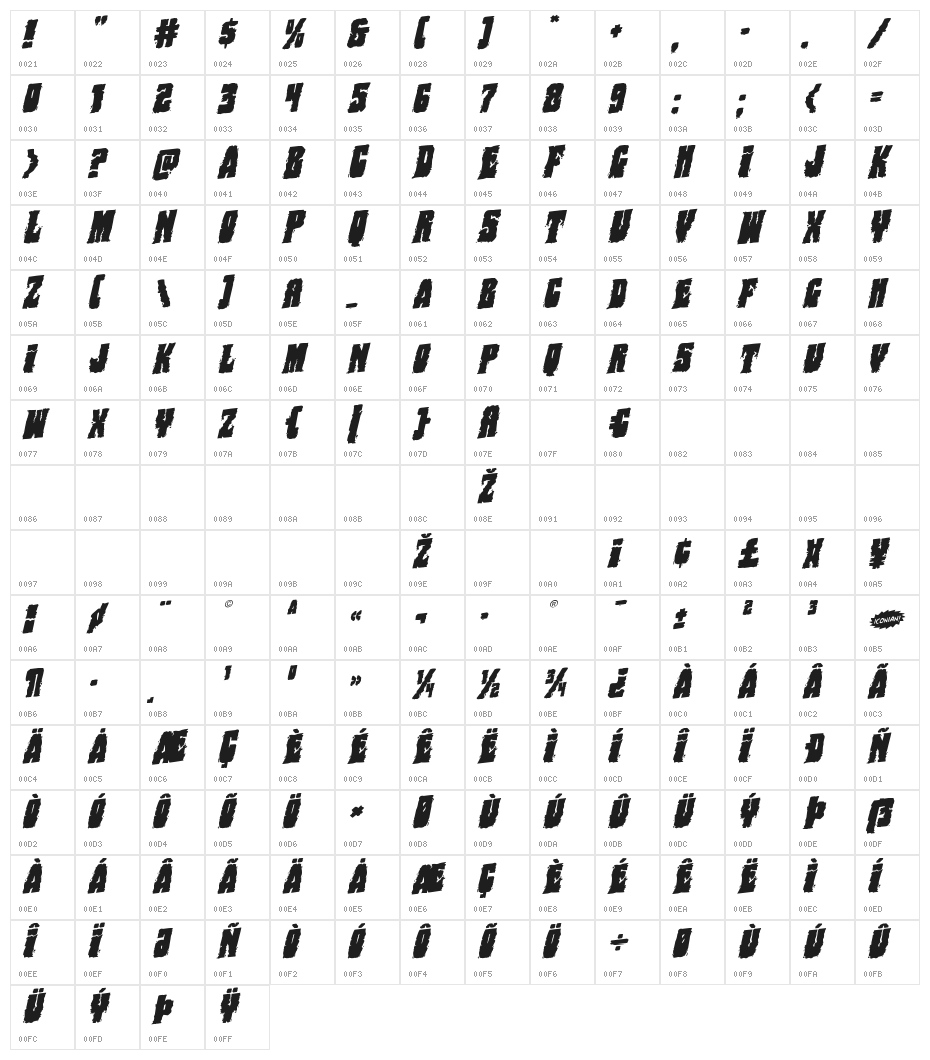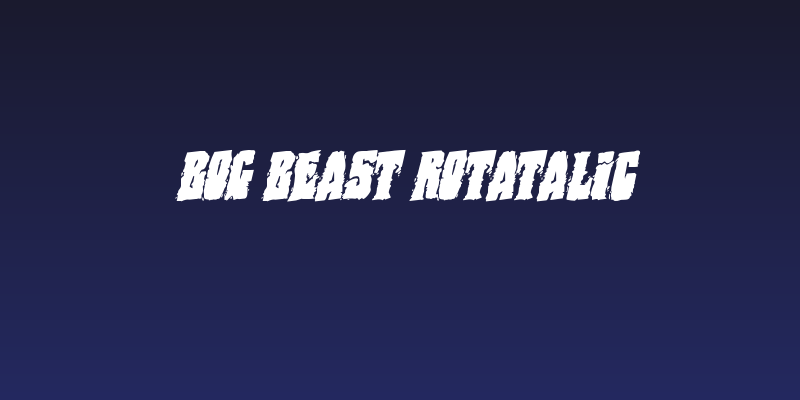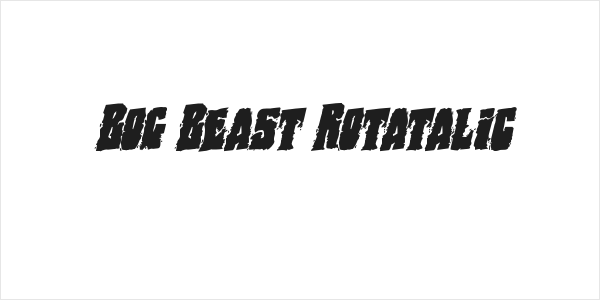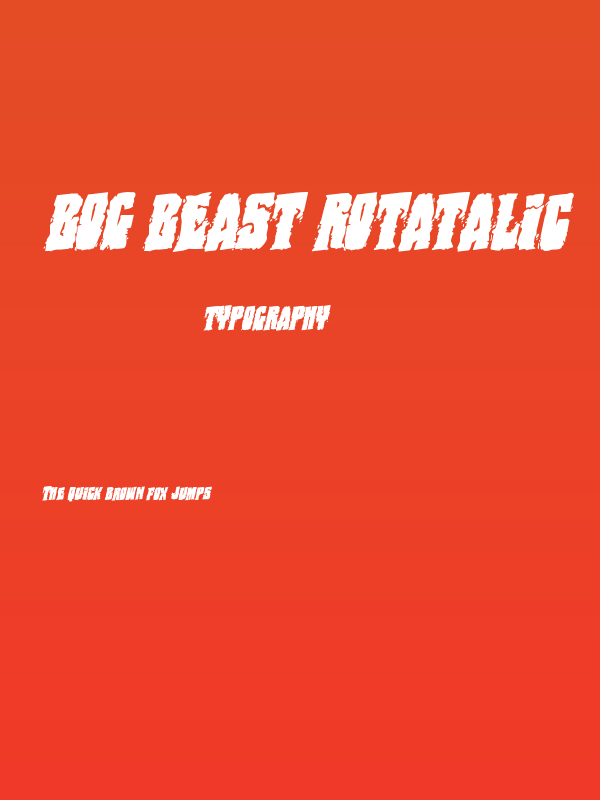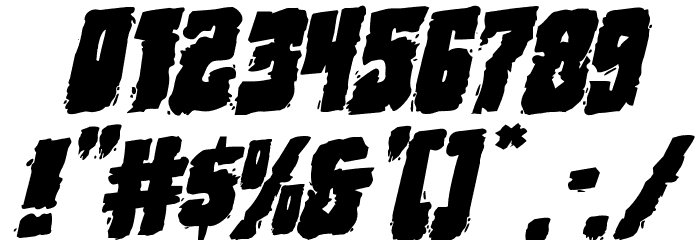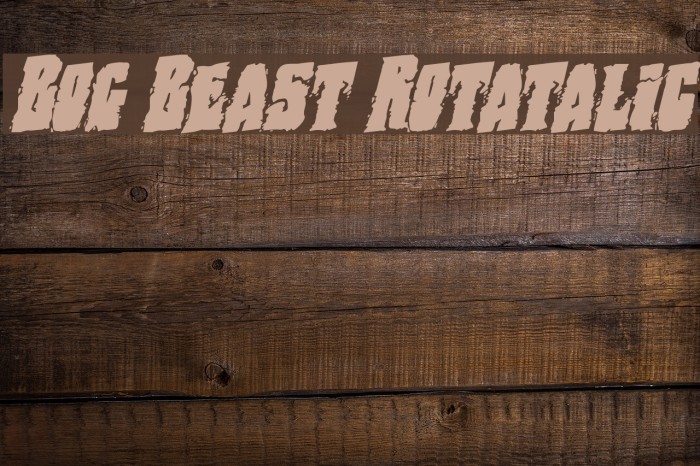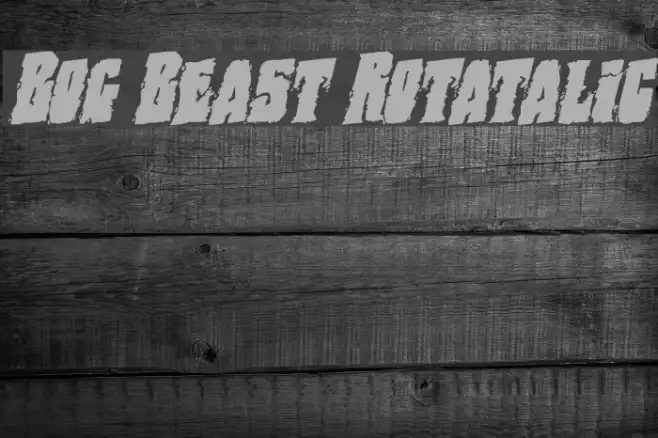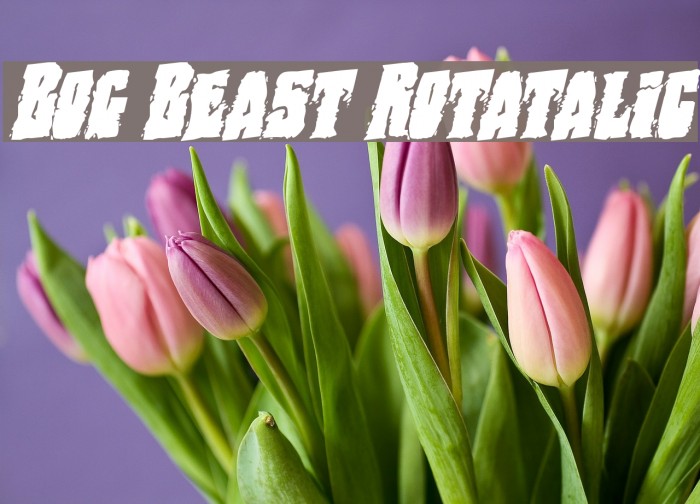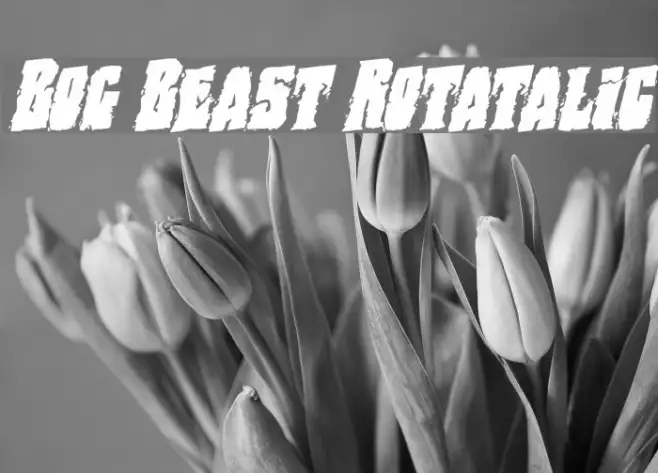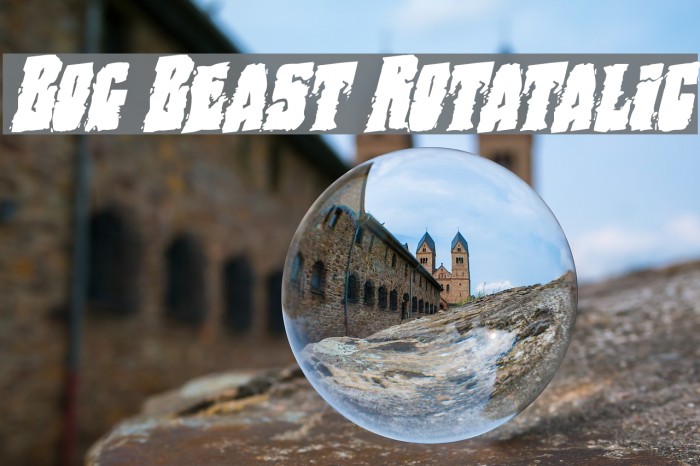
Bog Beast Rotatalic Font
Bog Beast Rotatalic Description
This font features a rugged, distressed aesthetic with a bold and aggressive appearance. The characters are heavily stylized, with jagged edges and an irregular texture that gives the impression of being worn or eroded. The uppercase and lowercase letters maintain a consistent style, with a slight slant that adds to the dynamic feel. Numbers and special characters are equally bold and textured, ensuring a cohesive look across all glyphs. This font is designed to stand out and make a strong visual impact, ideal for projects that require a gritty or intense vibe.
| Proposed Projects | Ideal for horror movie posters, video game titles, edgy branding, and event flyers. |